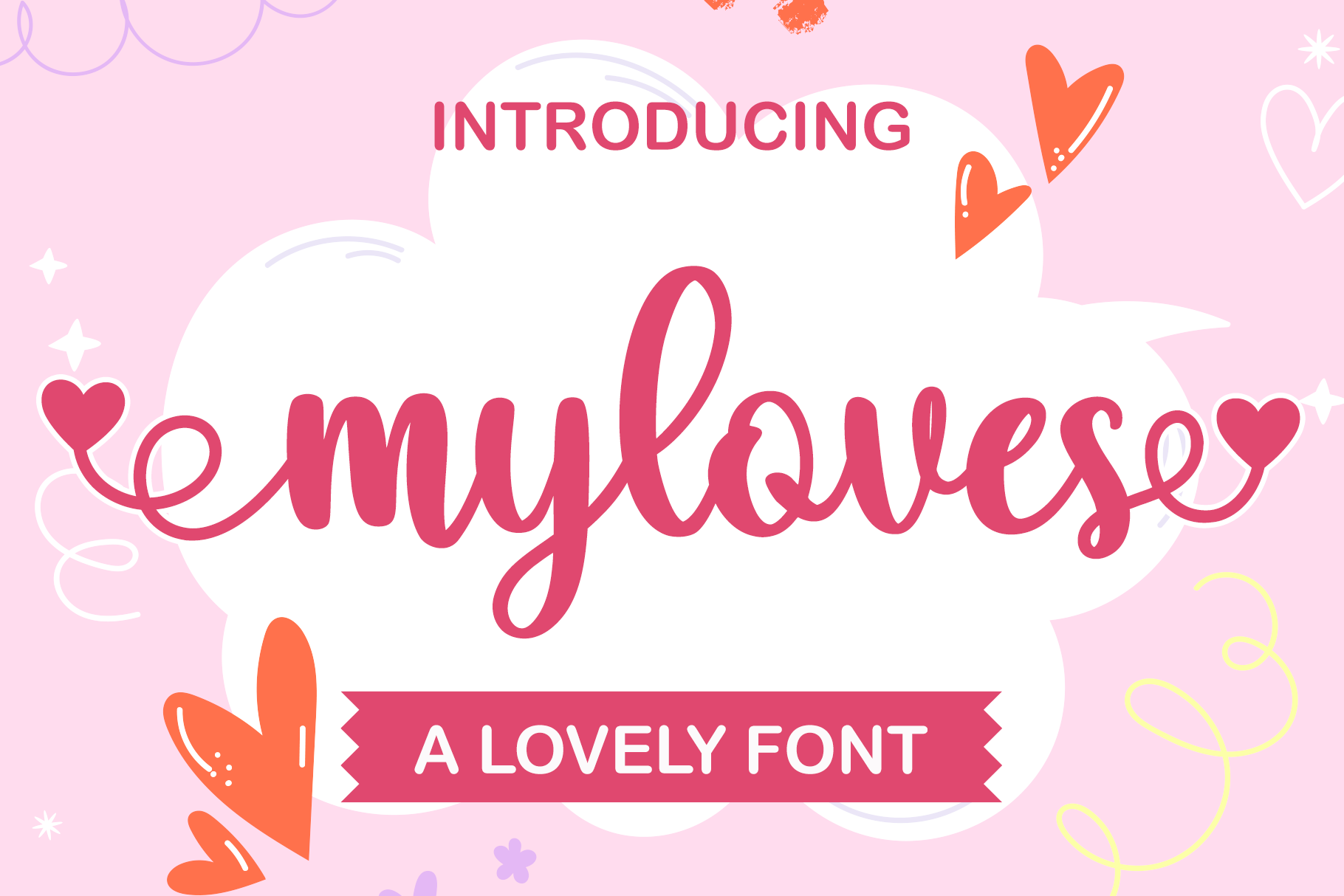
Myloves // Love font
Myloves is a loveley handwritten font. Whether you’re looking for fonts for social media or calligraphy scripts for DIY projects, myloves will turn any creative idea into a true piece of art! This font is PUA encoded which means you can access all of the glyphs and swashes with ease! Files Include :